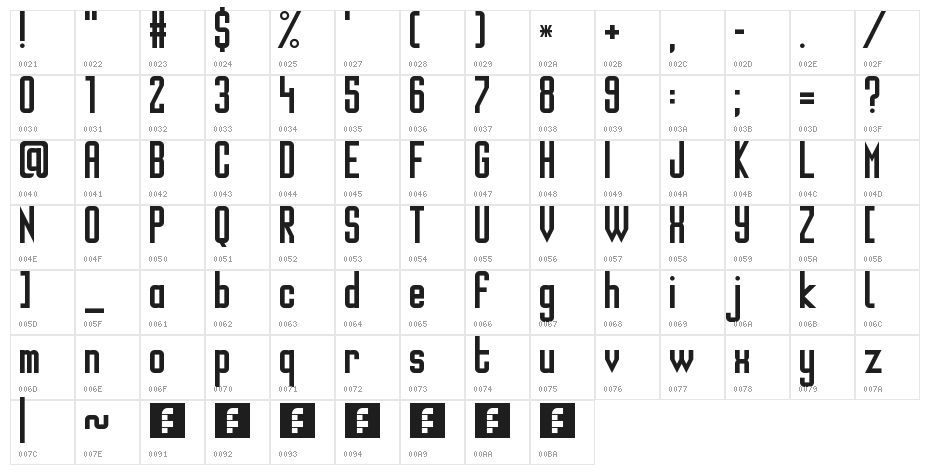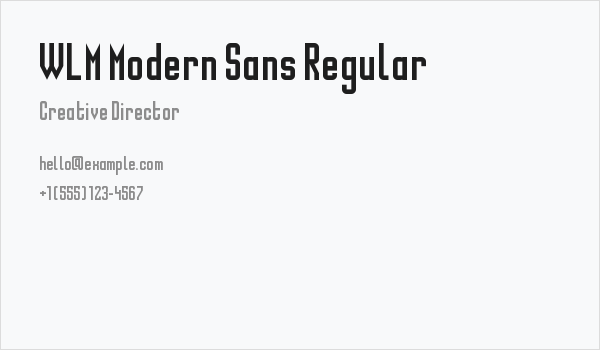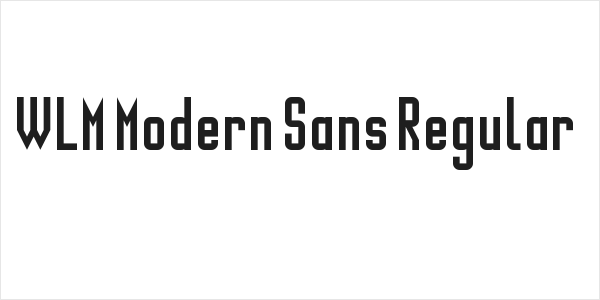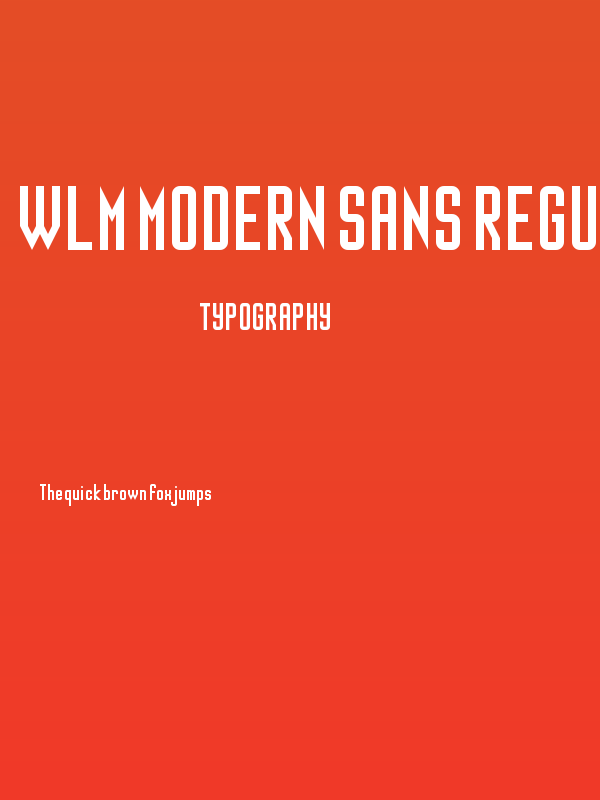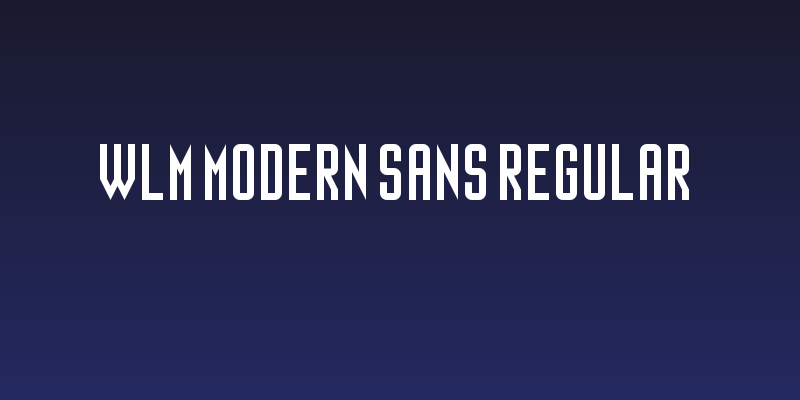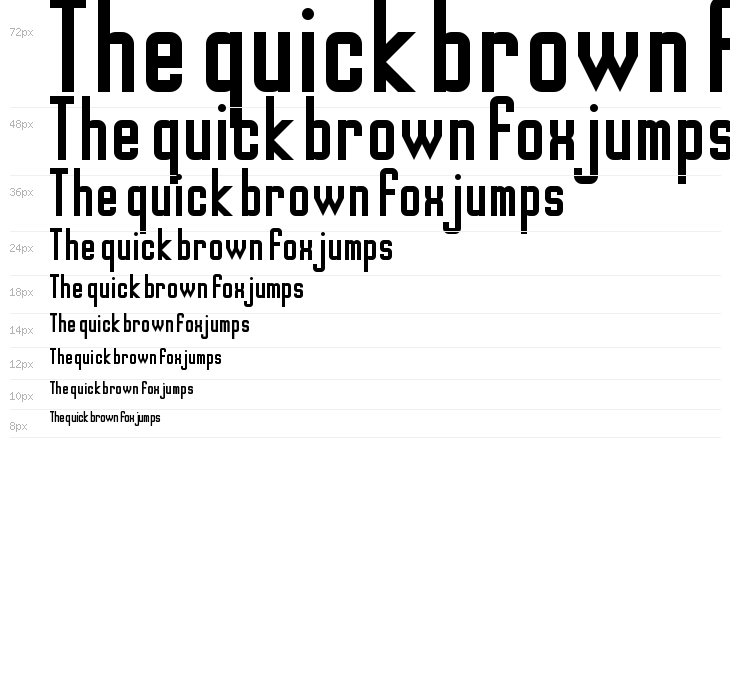
WLM Modern Sans Regular Font
WLM Modern Sans Regular Description
This font features a modern sans-serif style with a geometric and structured appearance. The characters are bold and have a uniform stroke width, contributing to a clean and contemporary look. The uppercase letters are tall and slightly condensed, while the lowercase letters maintain a consistent height, enhancing readability. The numerals are distinct and align well with the overall design, making them suitable for various applications. Special characters are clearly defined, adding versatility to the font. The overall design is sleek and professional, making it ideal for modern branding and design projects.
| Proposed Projects | Ideal for branding, advertising, headlines, and digital media projects that require a modern and clean aesthetic. |